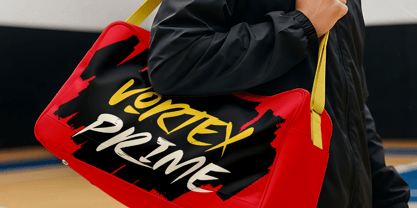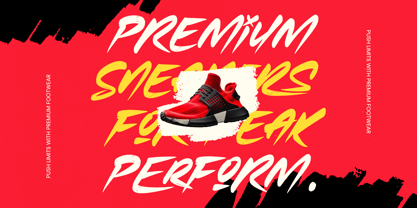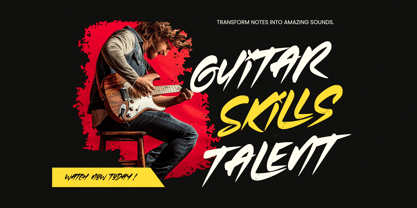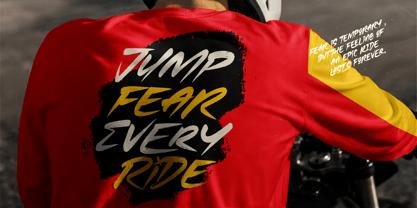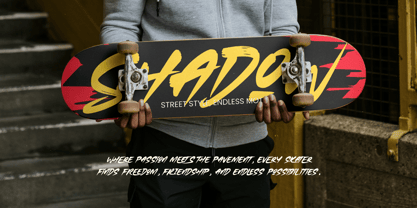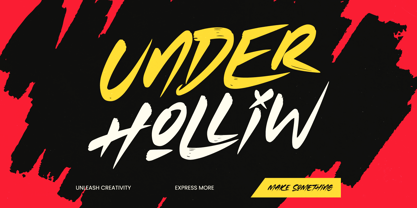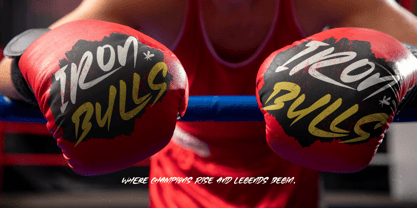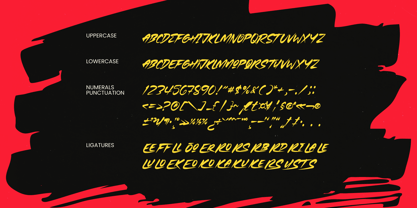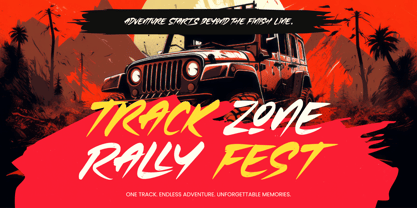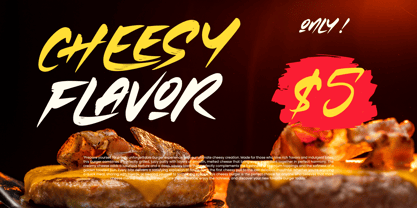
Under Holliw
The Under Holliw Font Family was designed by Heru Utama Putra and published by Stylishtype Studio. Under Holliw contains 2 styles and family package options. More about this family
Unleash a wave of raw energy and unbridled creativity with the striking presence of Under Holliw. This font captures the essence of street culture and urban motion, turning every headline into a powerful visual statement.
Inspired by the fast-paced world of street art and handmade signs, this typeface mimics the fluid motion of a quick-drying brush. It carries the weight of authentic texture, suggesting a story of midnight murals and underground scenes where every stroke is intentional.
While it breaks traditional rules, it functions as a modern serif display alternative for those seeking a luxury typography edge with a gritty twist. This high-impact editorial font provides a massive branding impact, moving beyond the typical high-contrast serif to offer a visceral, handwritten experience.